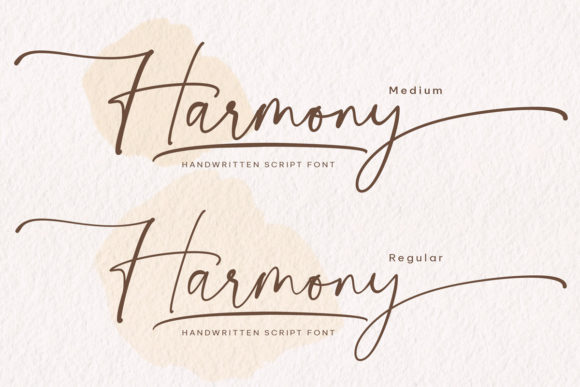
Harmony Font
db-ku.com - Script & Handwritten -- Harmony is an exquisite handwritten font, masterfully designed to become a true favorite. that comes with beautiful ligatures and lovely alternates. Harmony has a very beautiful stroke and it will suit various wedding invitations, fashion cards, and more. This font is PUA encoded which means you can access all of the glyphs and swashes with ease!